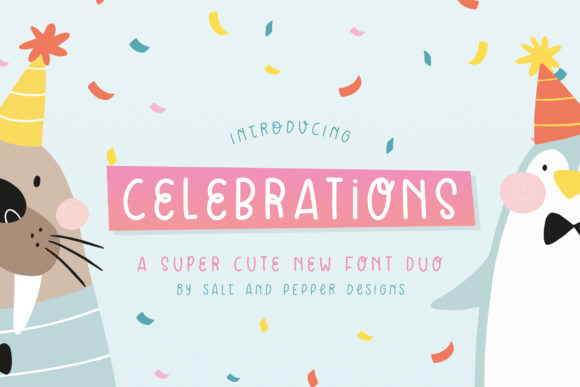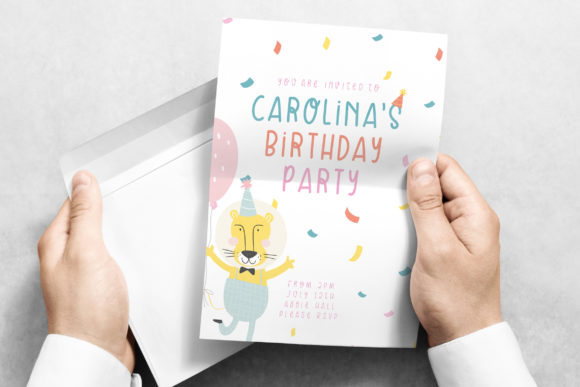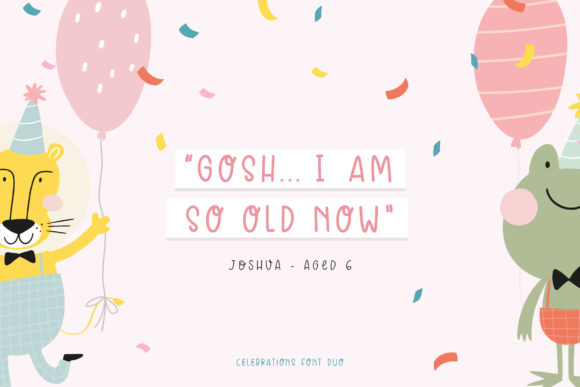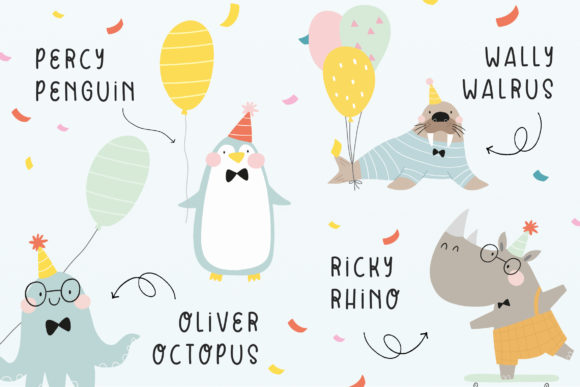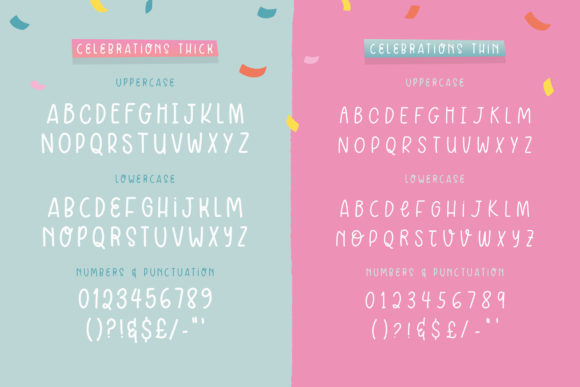
About Celebrations Font
Celebrations is a fun and playful handwritten font. With nicely rounded characters and a friendly style, this typeface is a great choice for children’s magazines, apparel designs, cute watermarks, and other lovely projects!